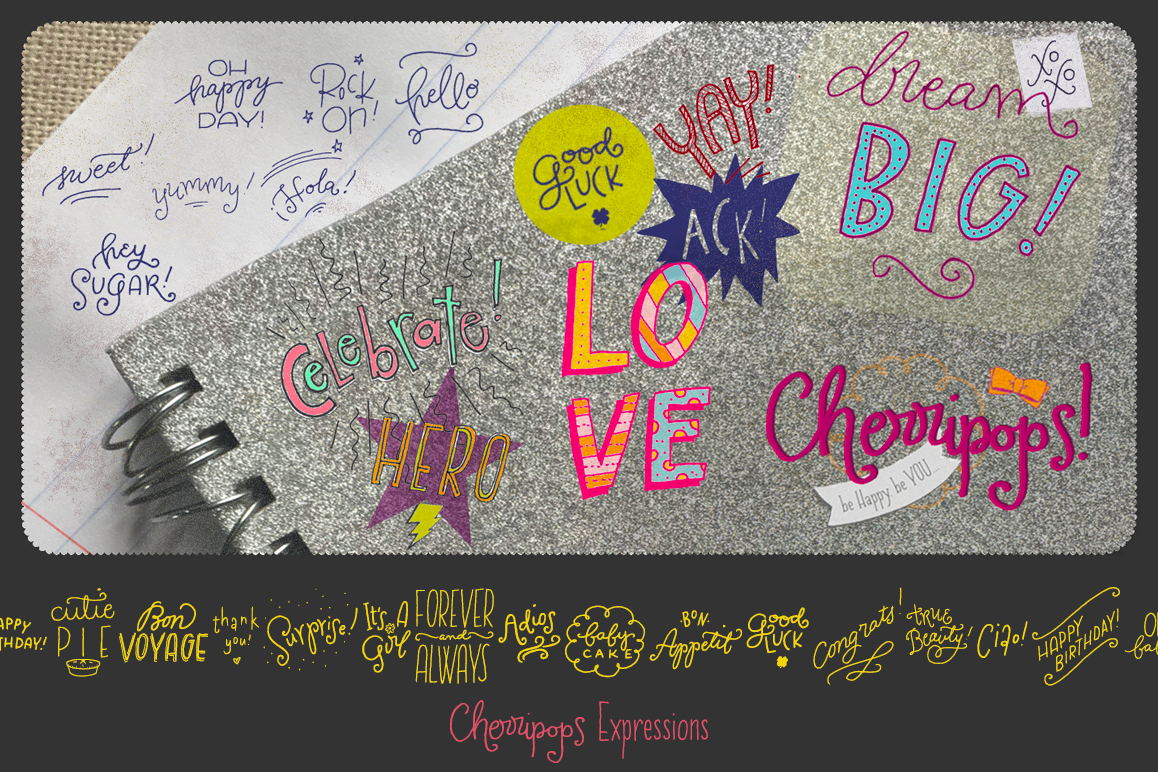
Cherripops Expressions & Ribbons - 4 pack
Be Happy, Be you! Express yourself with Cherripops!  A collection of supercool ribbons & expressions to decorate your projects with a youthful flair to let that creative kid within shine!